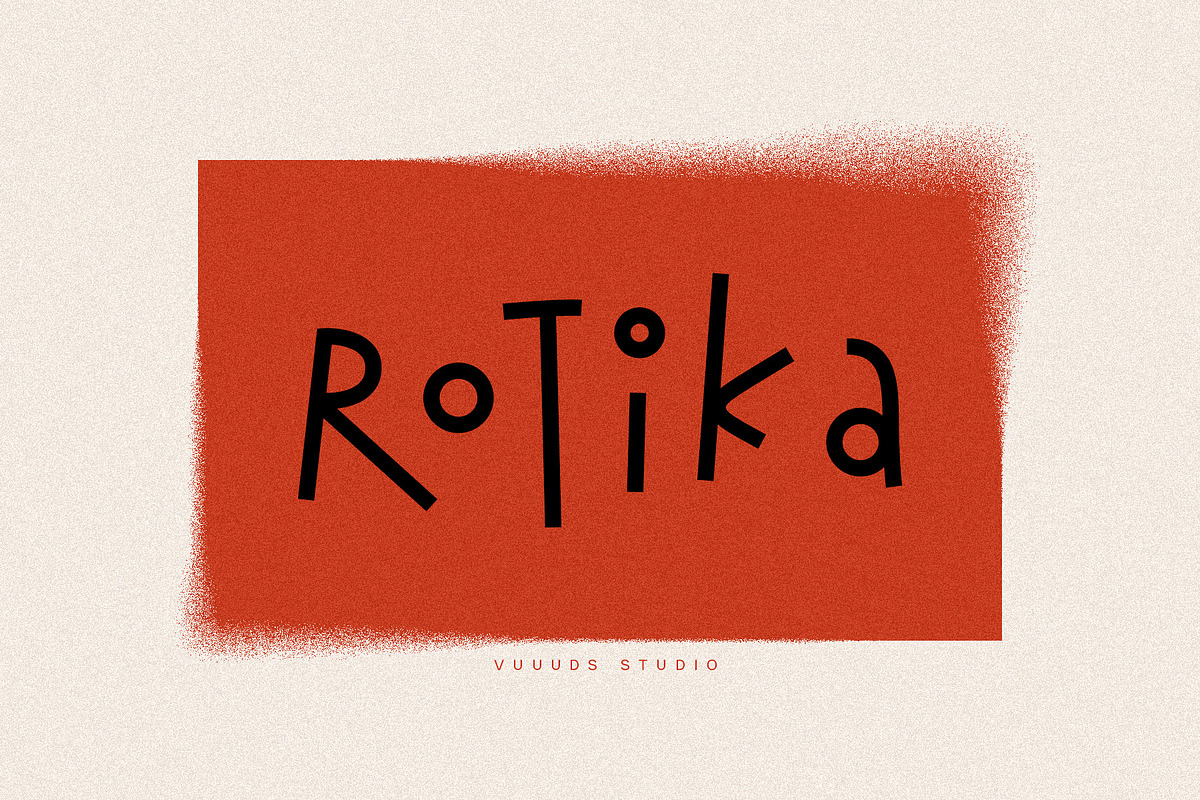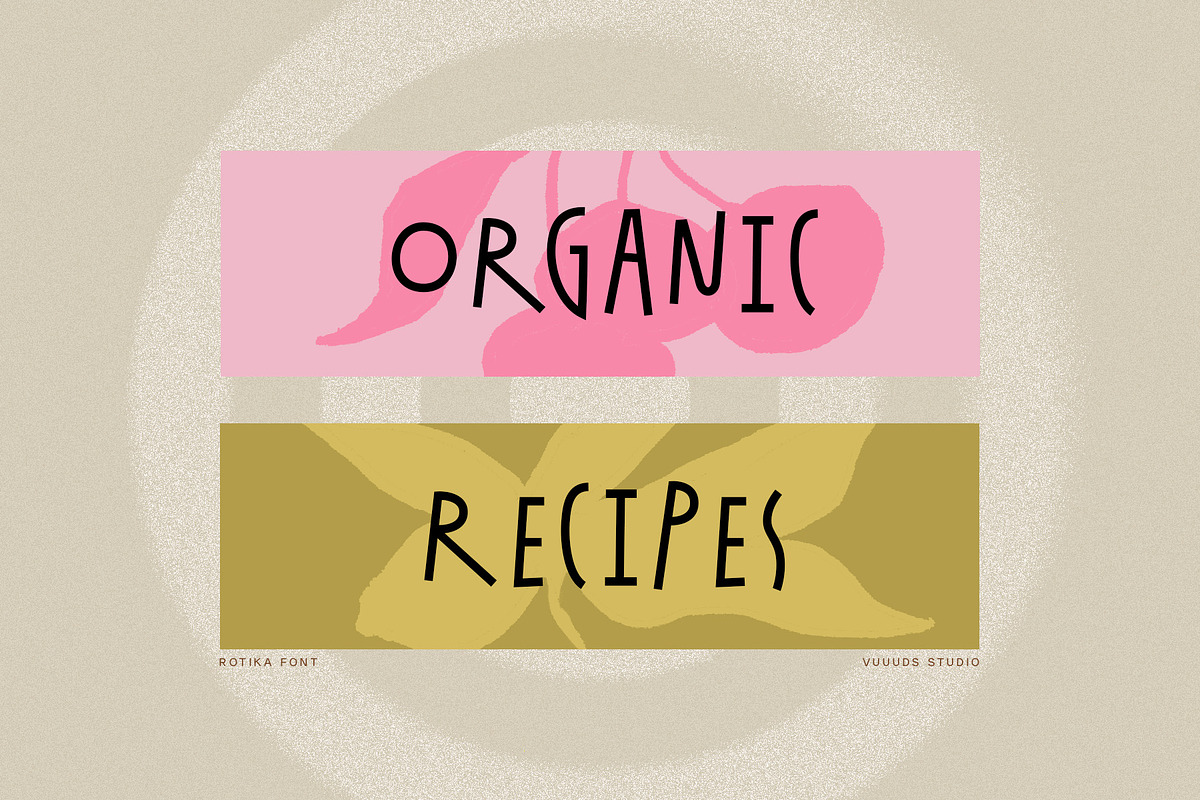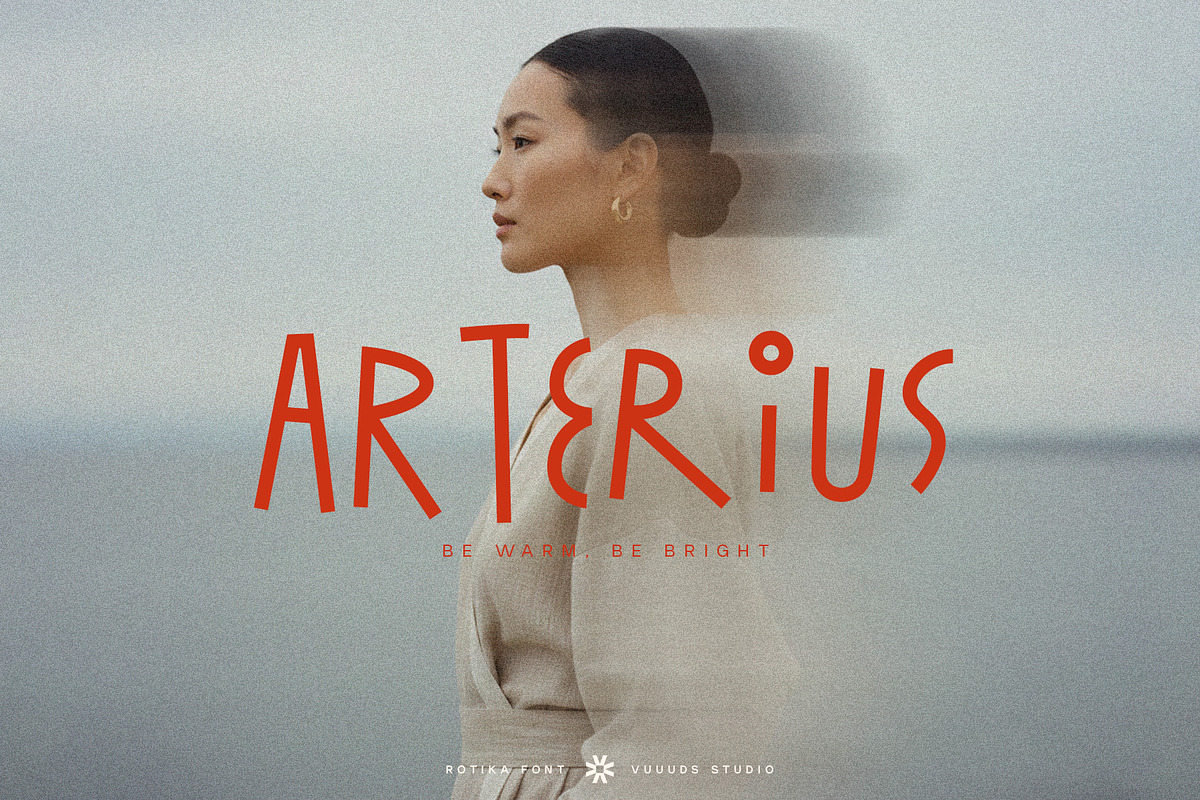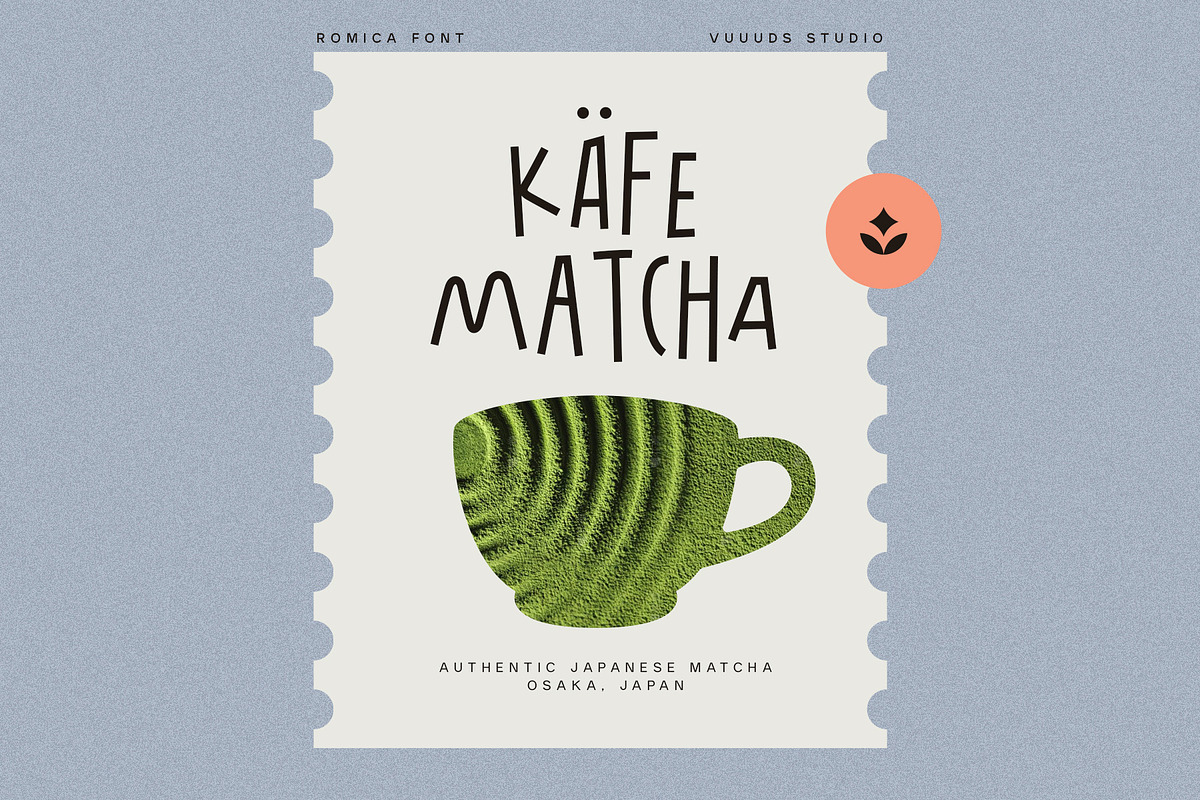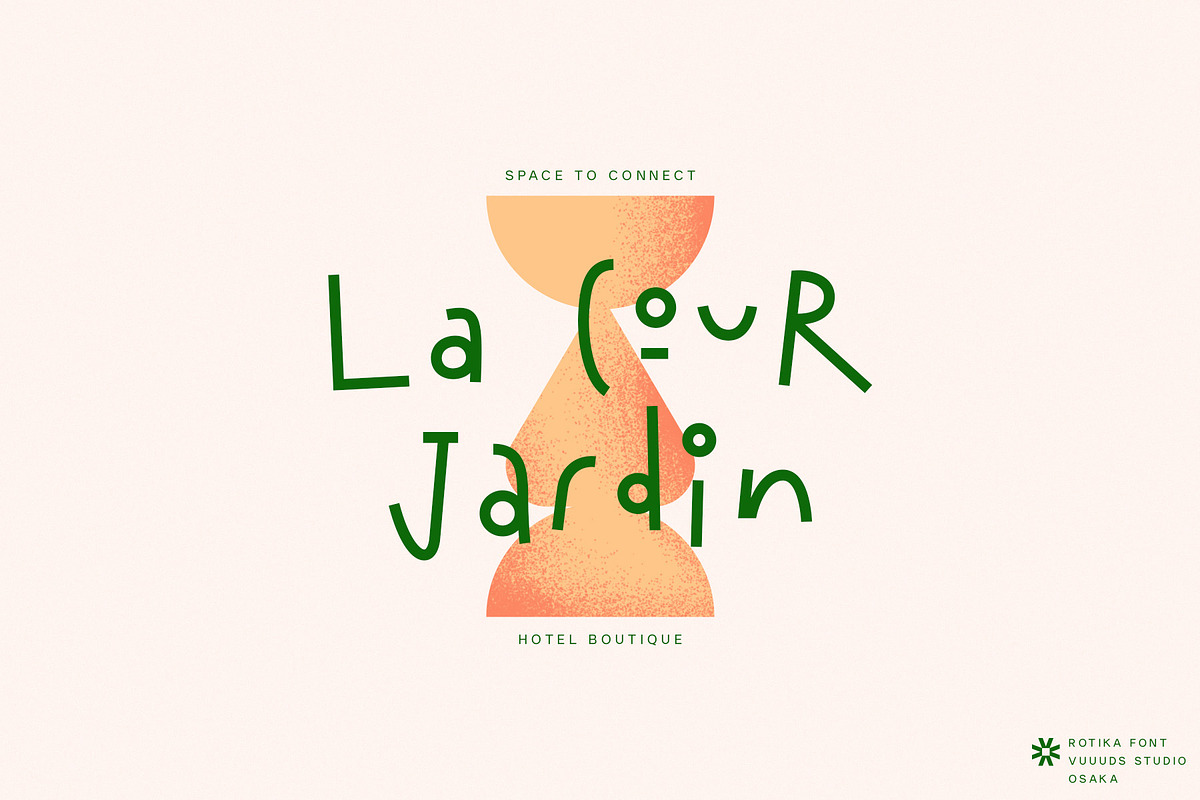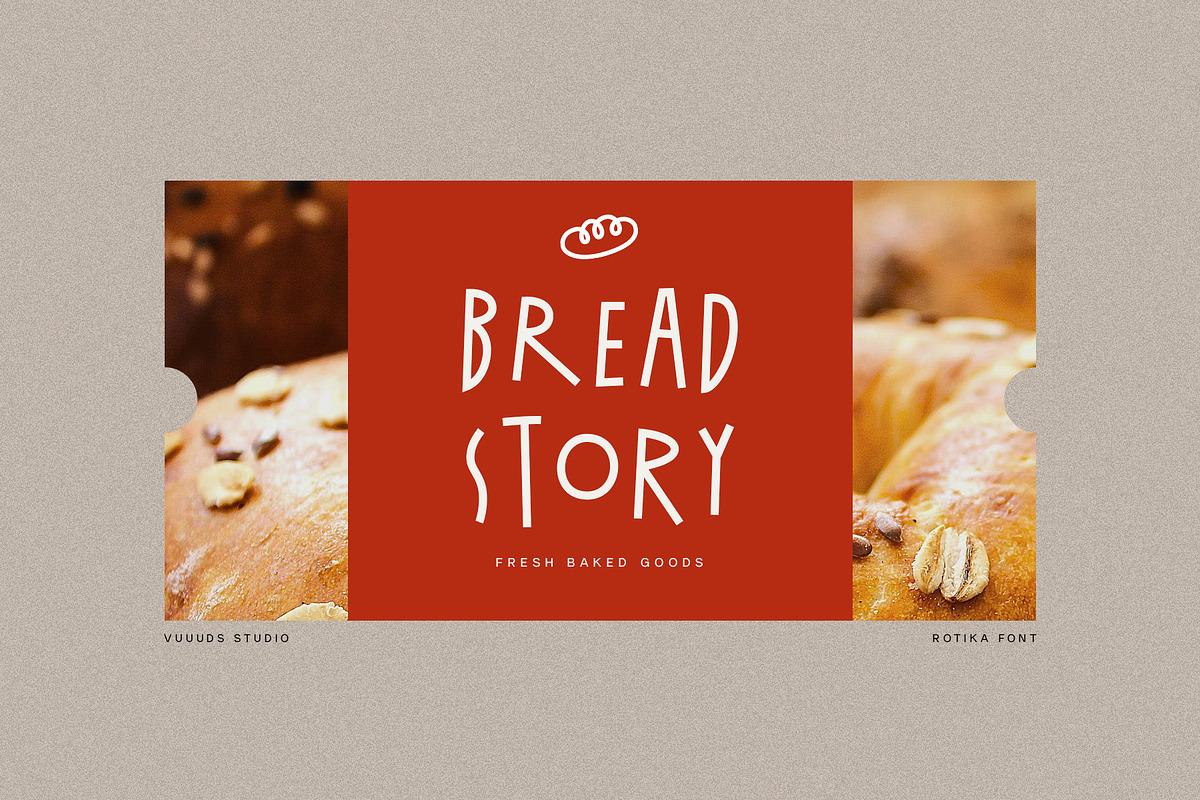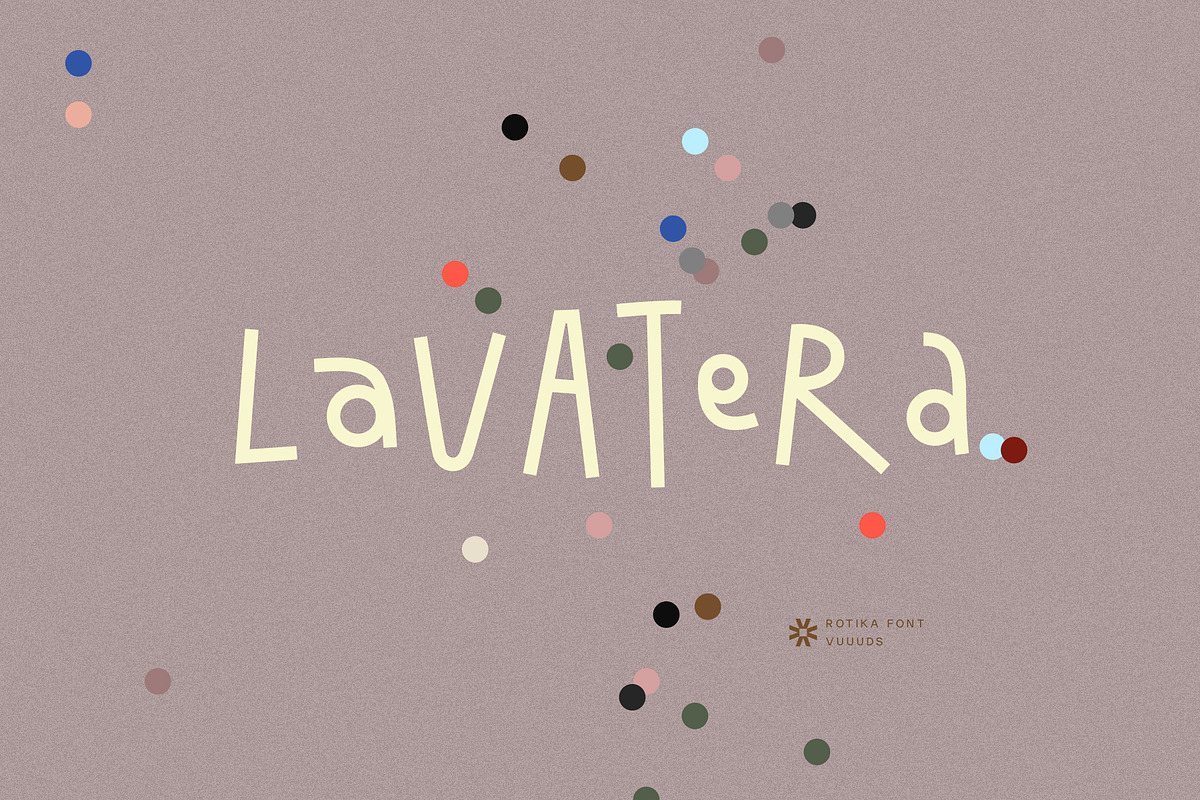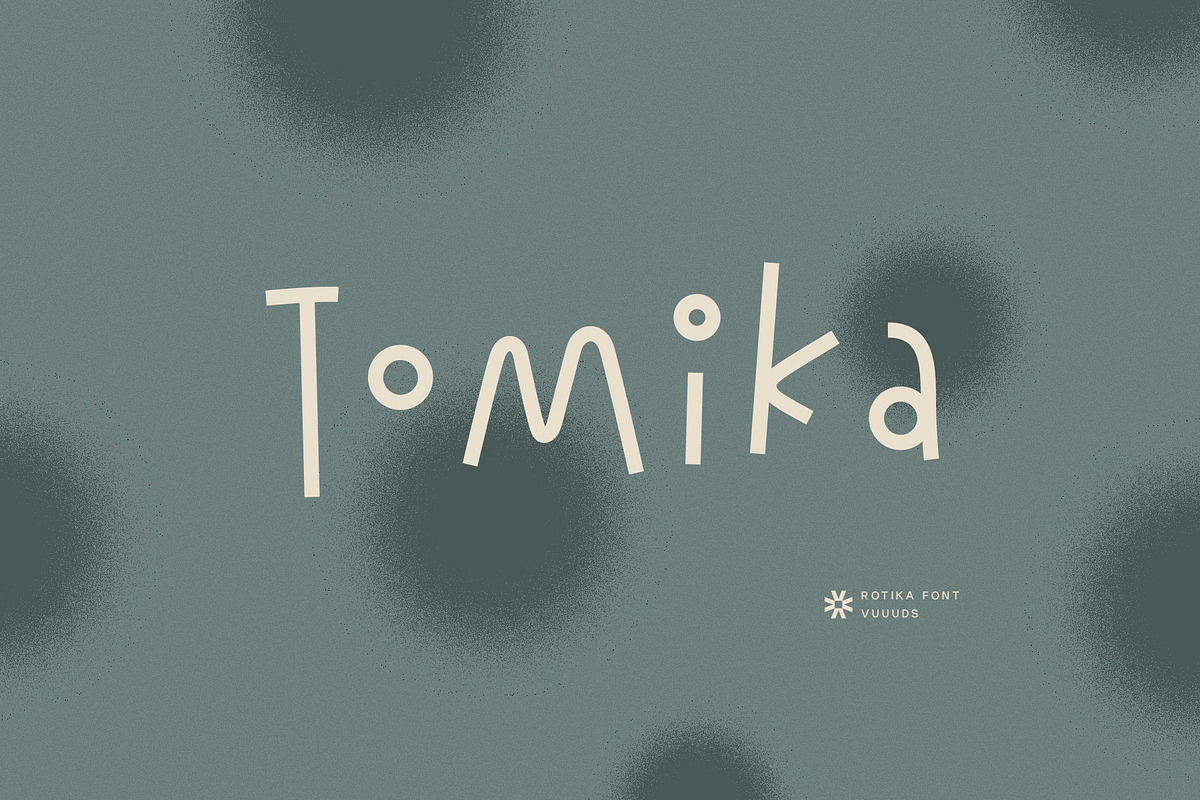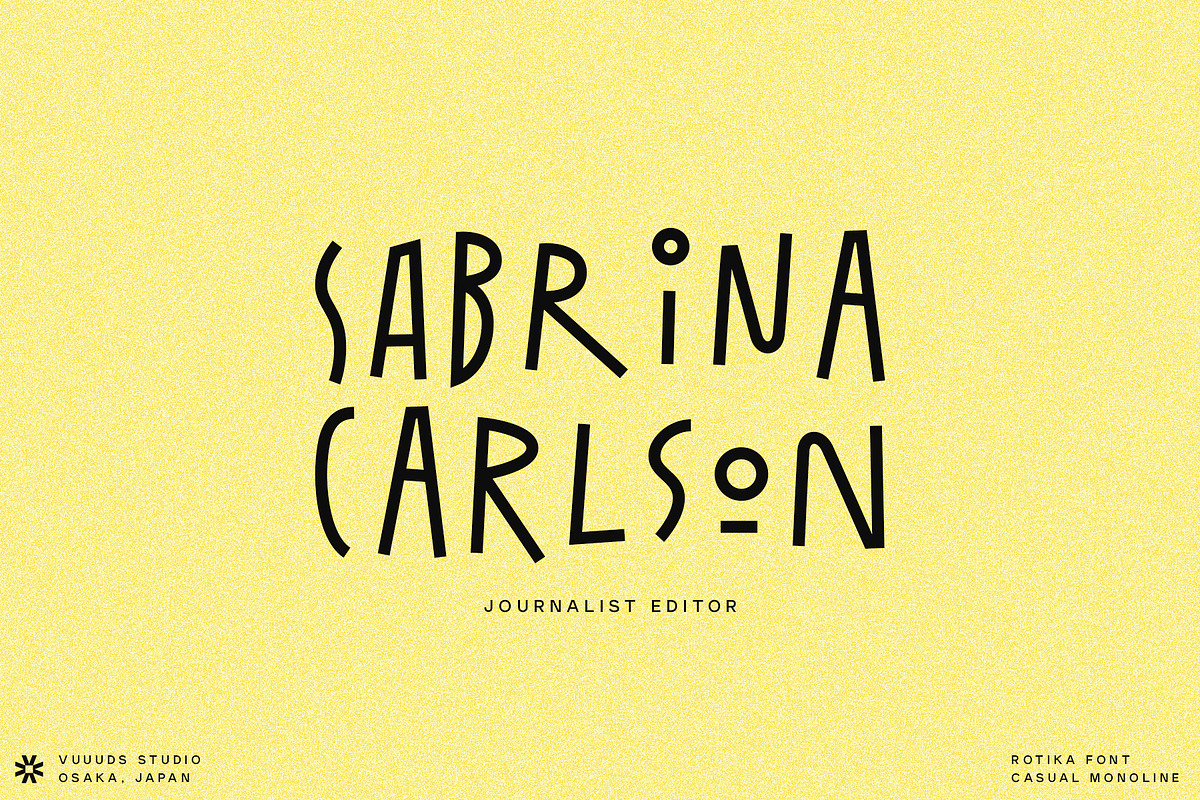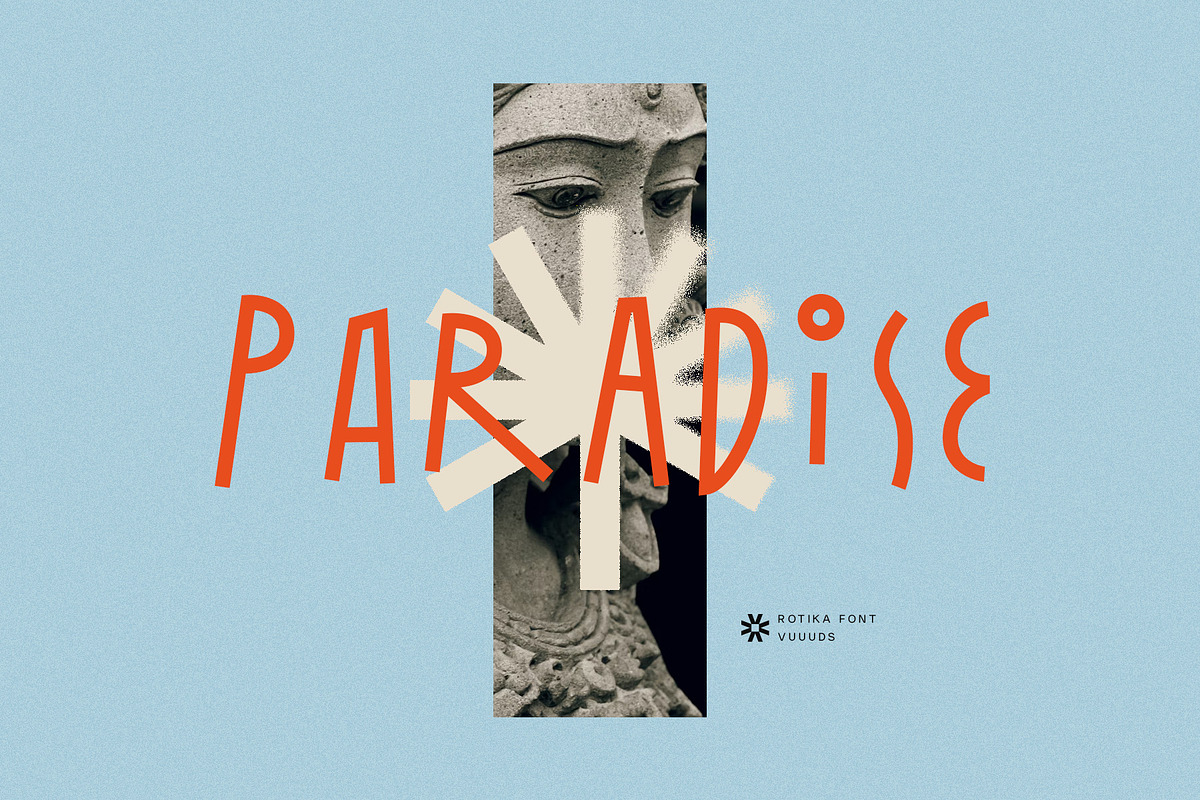
Rotika
Introducing Rotika Font!
Rotika is casual fun monoline sans serif font, every single letters have been uniquely crafted. This font including beautiful alternate glyph. You can access the alternate glyph via Font Book (Mac user) or Windows Character Map (Windows user), I've been put the link tutorial inside the zip file.